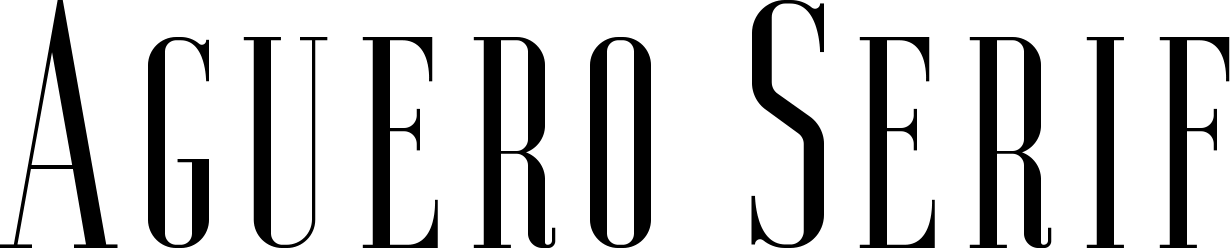
Aguero Serif Font
Download Aguero Serif and we assure you you’ll be impressed at what a sequence of sharp long-necked characters is capable of bringing to your typography. Use this luxury serif font for your logos, signage, website banners, or else, and a masterpiece is in the bag.
This trendy serif font, perfect for highlighting your text with a modern and elegant style, is comprised of only the capitals but makes up for the lack of lowercase by offering an extra italic style. Awesome, isn’t it?